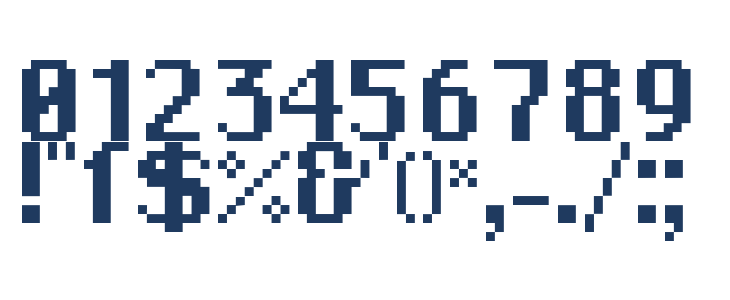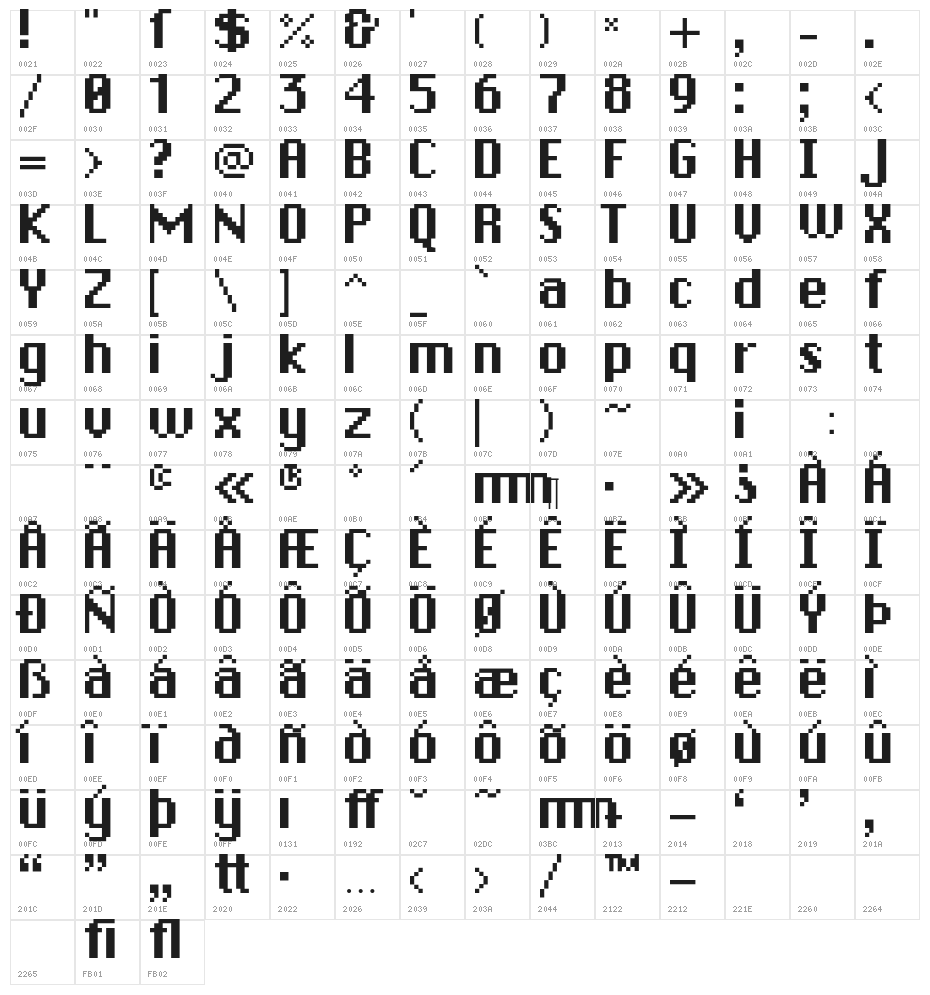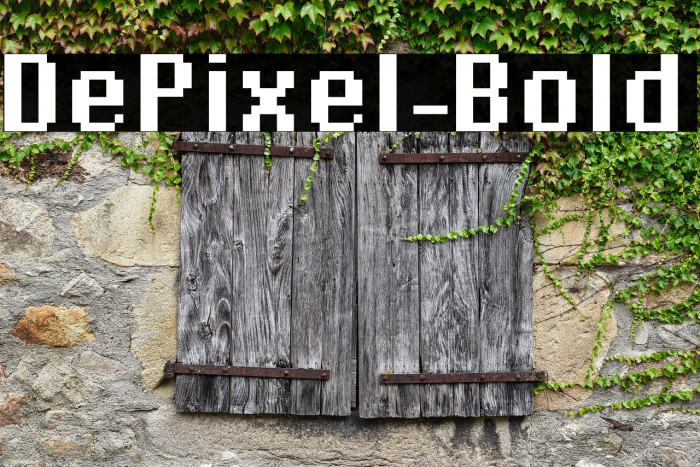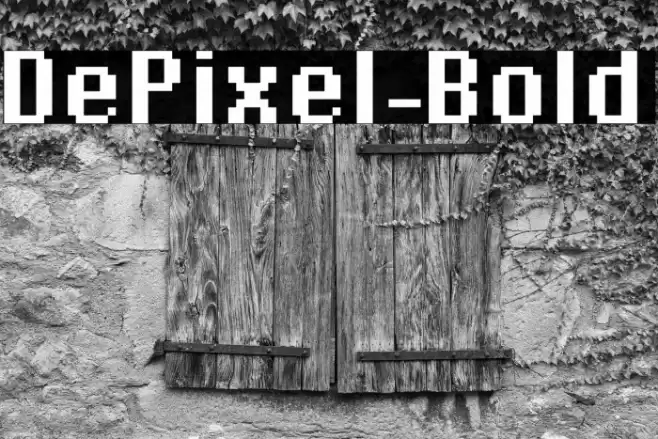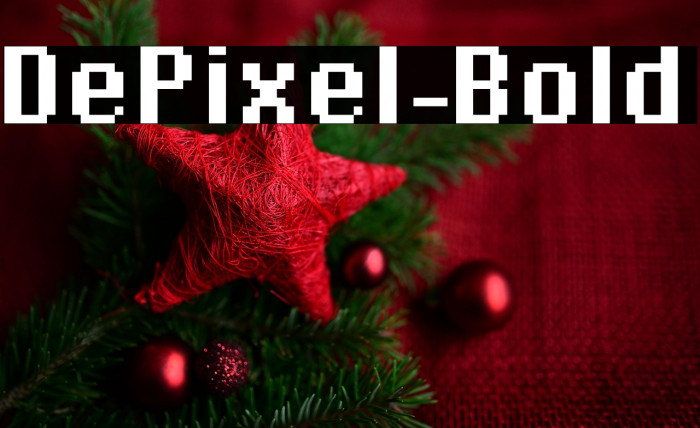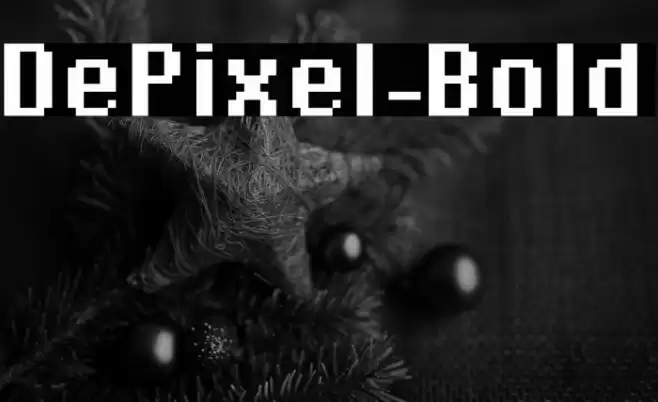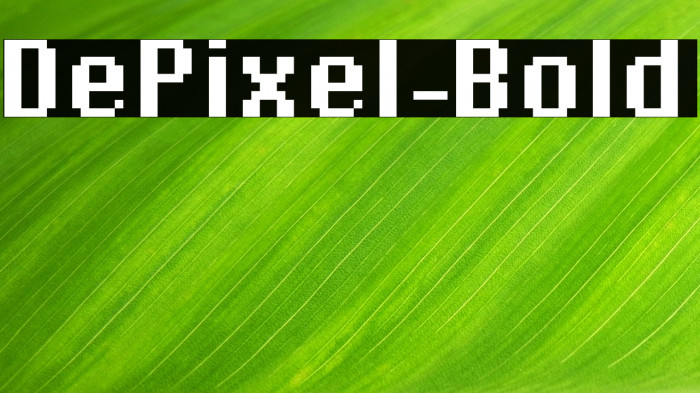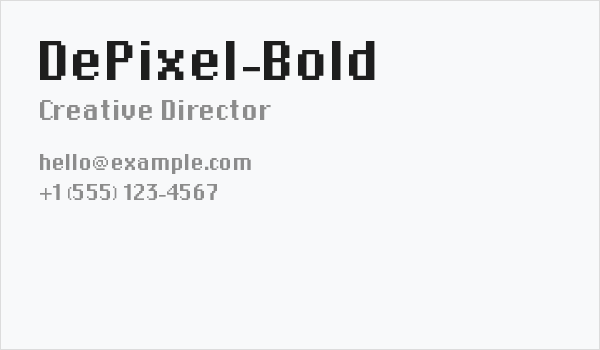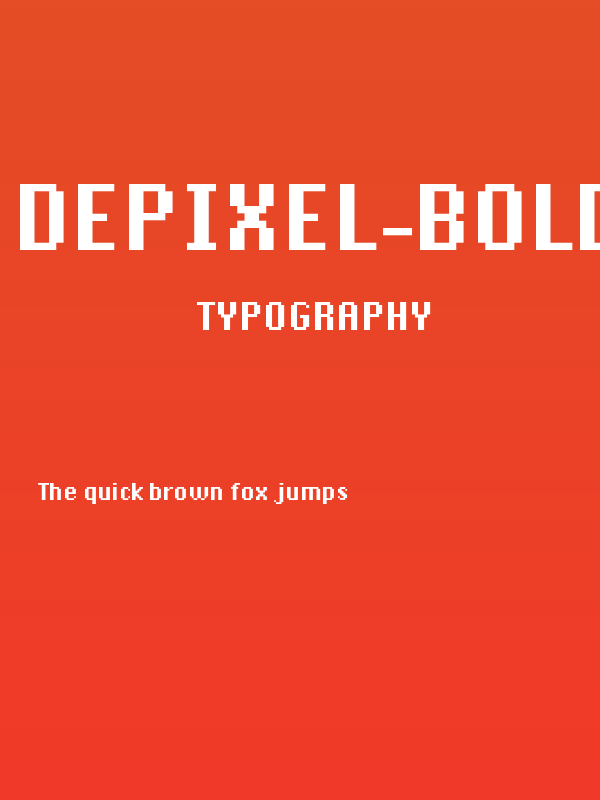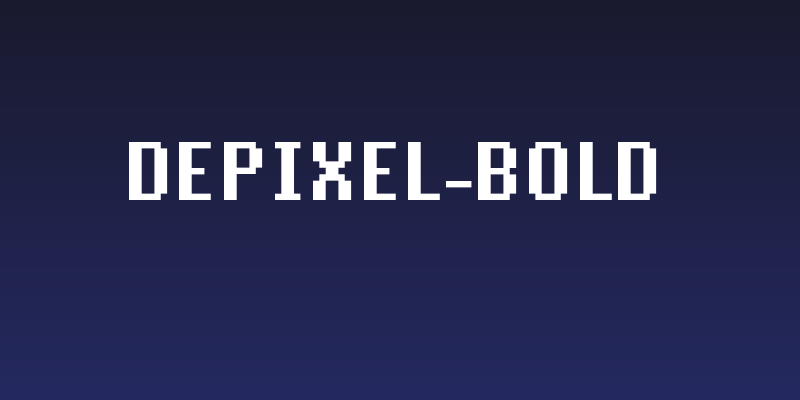
DePixel-Bold Font
DePixel-Bold Description
This font features a bold, pixelated design reminiscent of early digital displays and retro video games. Each character is constructed with a blocky, grid-like appearance, giving it a distinctly digital and nostalgic feel. The uppercase and lowercase letters maintain a consistent height and width, contributing to its monospaced nature. The numerals and special characters follow the same pixelated style, ensuring uniformity across the entire character set. This font's simplicity and clarity make it highly legible, even at smaller sizes, while its boldness ensures it stands out in any design.
| Use Case | Headlines, Logos, Digital displays |
| Proposed Projects | Ideal for retro-themed designs, video game graphics, digital art projects, and any creative work that requires a nostalgic digital touch. |